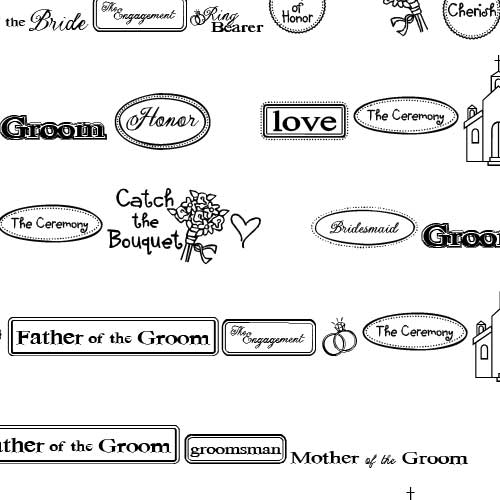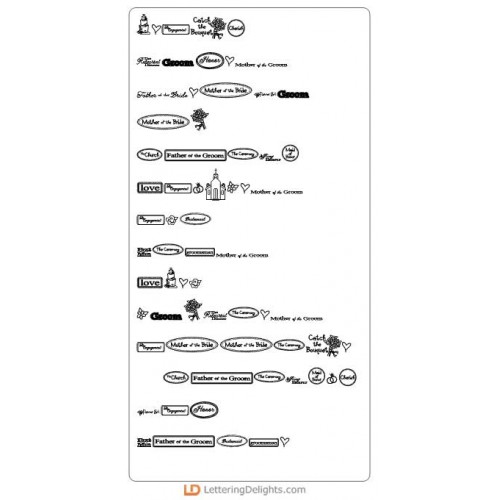
DB I Do Doodles - DB
DB I Do Doodles is a mixture of wedding themed sketches and words. DB I Do Doodles is a great addition to your own wedding day scrapbook or one for your friends and family.